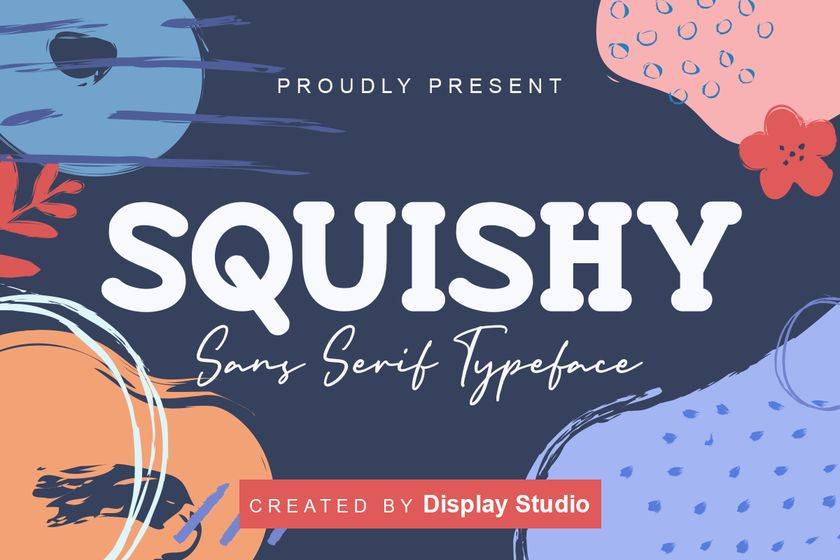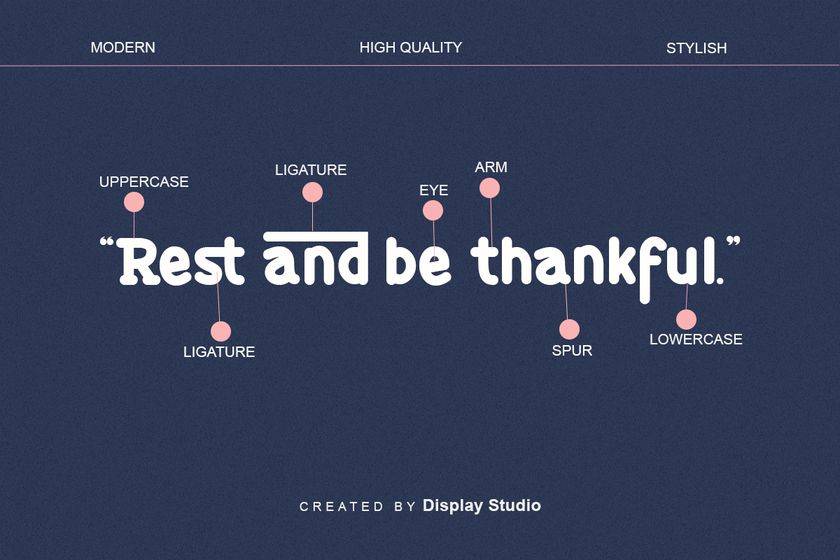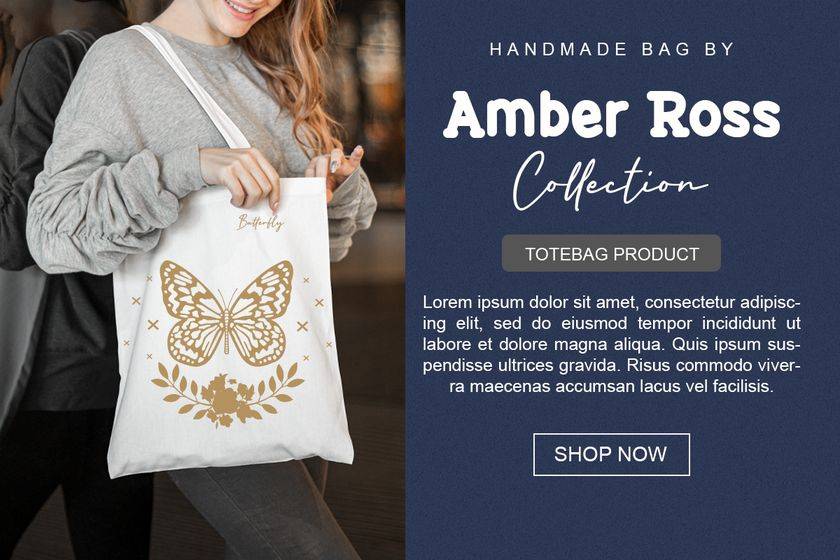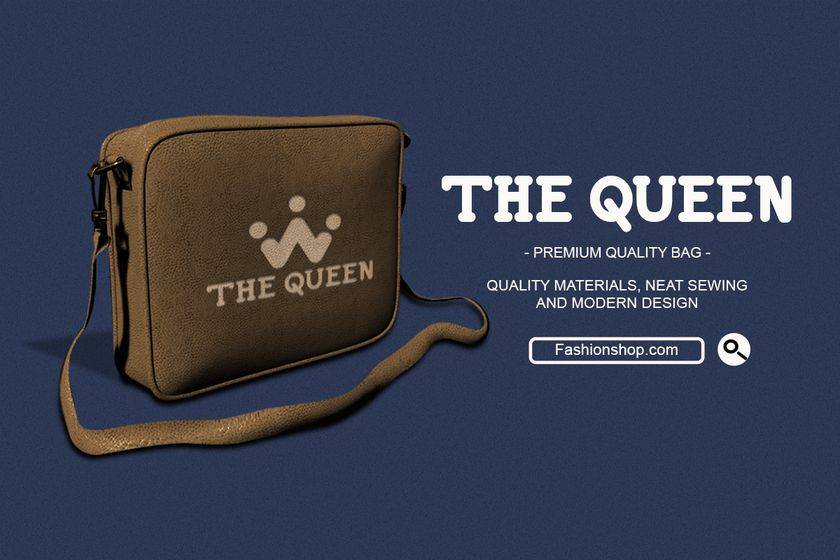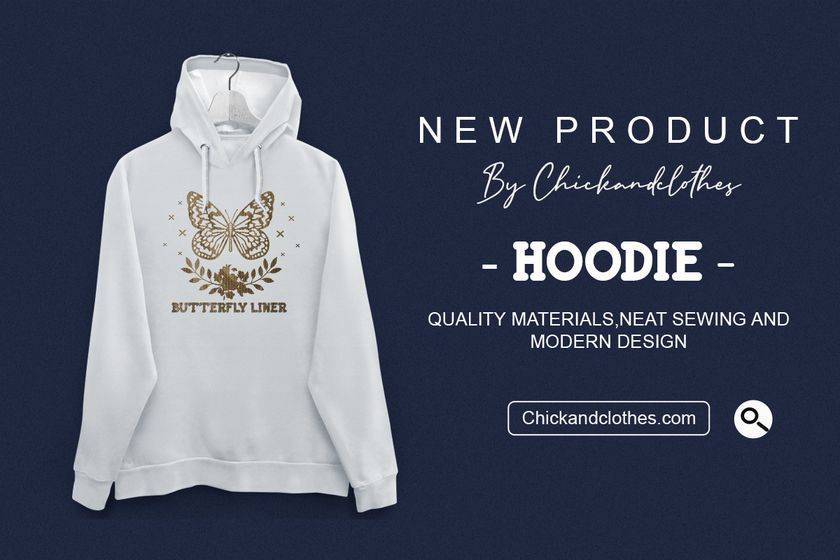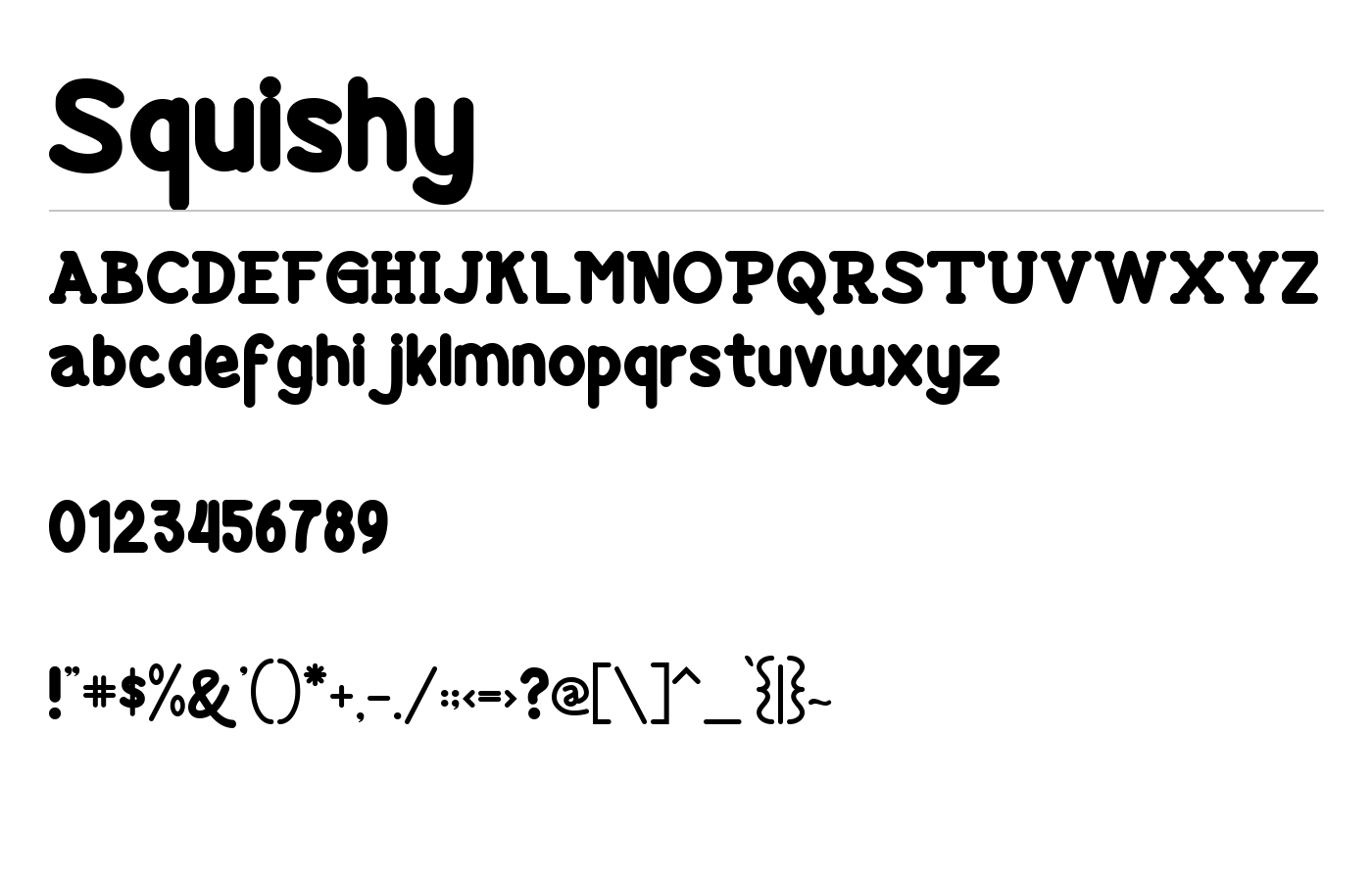
Squishy is a playful and rounded slab serif font with a bold weight and a friendly, approachable vibe. Its thick, soft-edged letterforms and moderate x-height create a cozy, informal feel perfect for casual branding, children’s content, or fun editorial projects. This font works best in headlines, packaging, and logos where a warm, inviting personality is desired.
Squishy Font
About Squishy Font